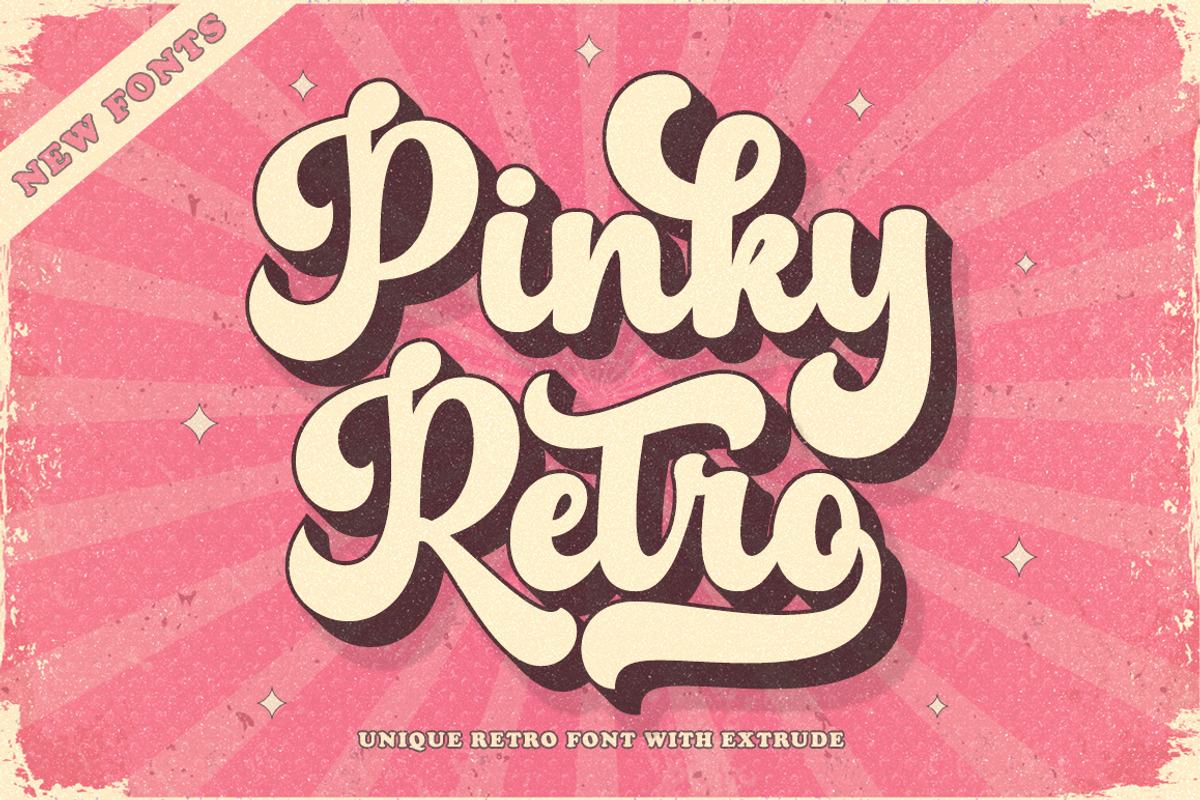
You must purchase this font for commercial use. However, you can download Pinky Retro Font Free Download for testing purposes. Pinky Retro is a fun and quirky retro-inspired font that brings a playful and vibrant touch to any design. Perfect for logos, branding, posters, social media graphics, and more, this font combines bold, curvy letterforms with a distinctive vintage flair.
With its unique and lively design, Pinky Retro adds personality and character to your projects, making it ideal for retro-themed designs, events, and creative branding. Whether you're designing for a retro cafe, a playful campaign, or a nostalgic product line, this font will stand out and capture attention.